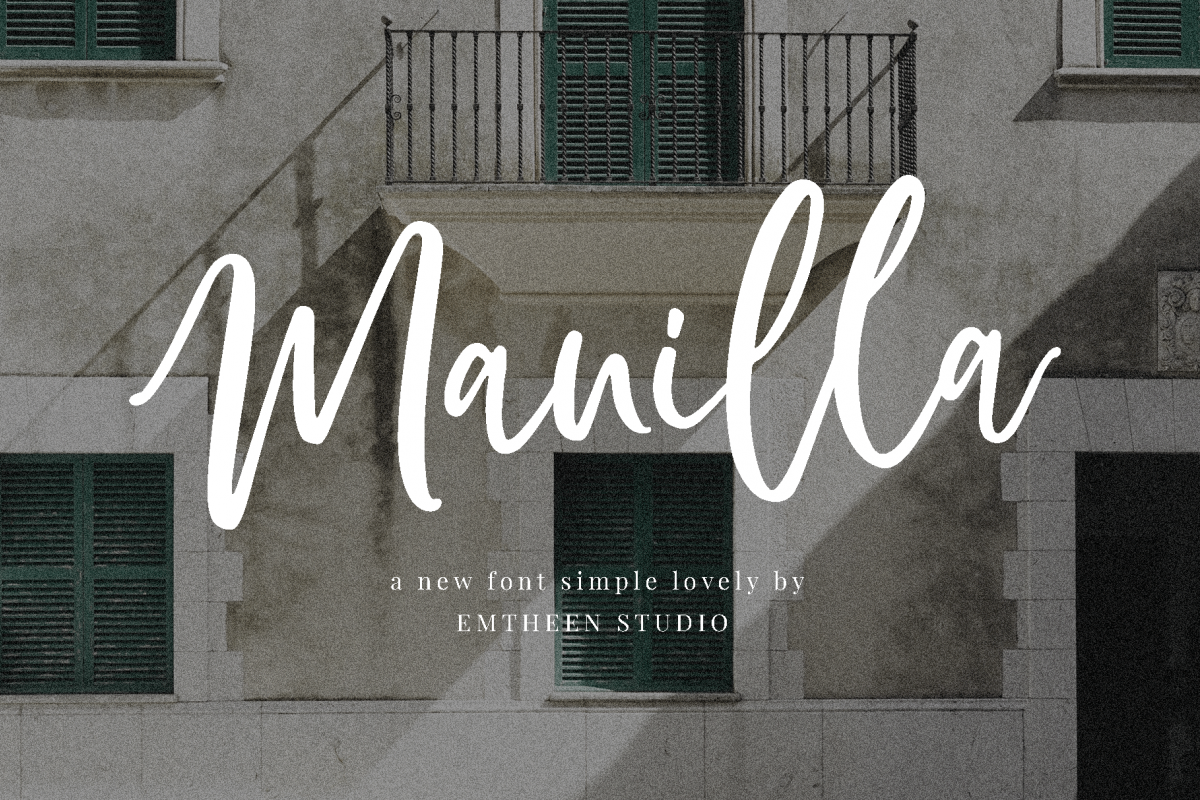
Manilla Script
Manilla Script is a simple script-style font that is simple to fit in all media / objects. in this font there are features Uppercase, Lowercase, Number and punctuation, Multilingual language, Ligature & Alternate character. and this font has .ttf & .otf